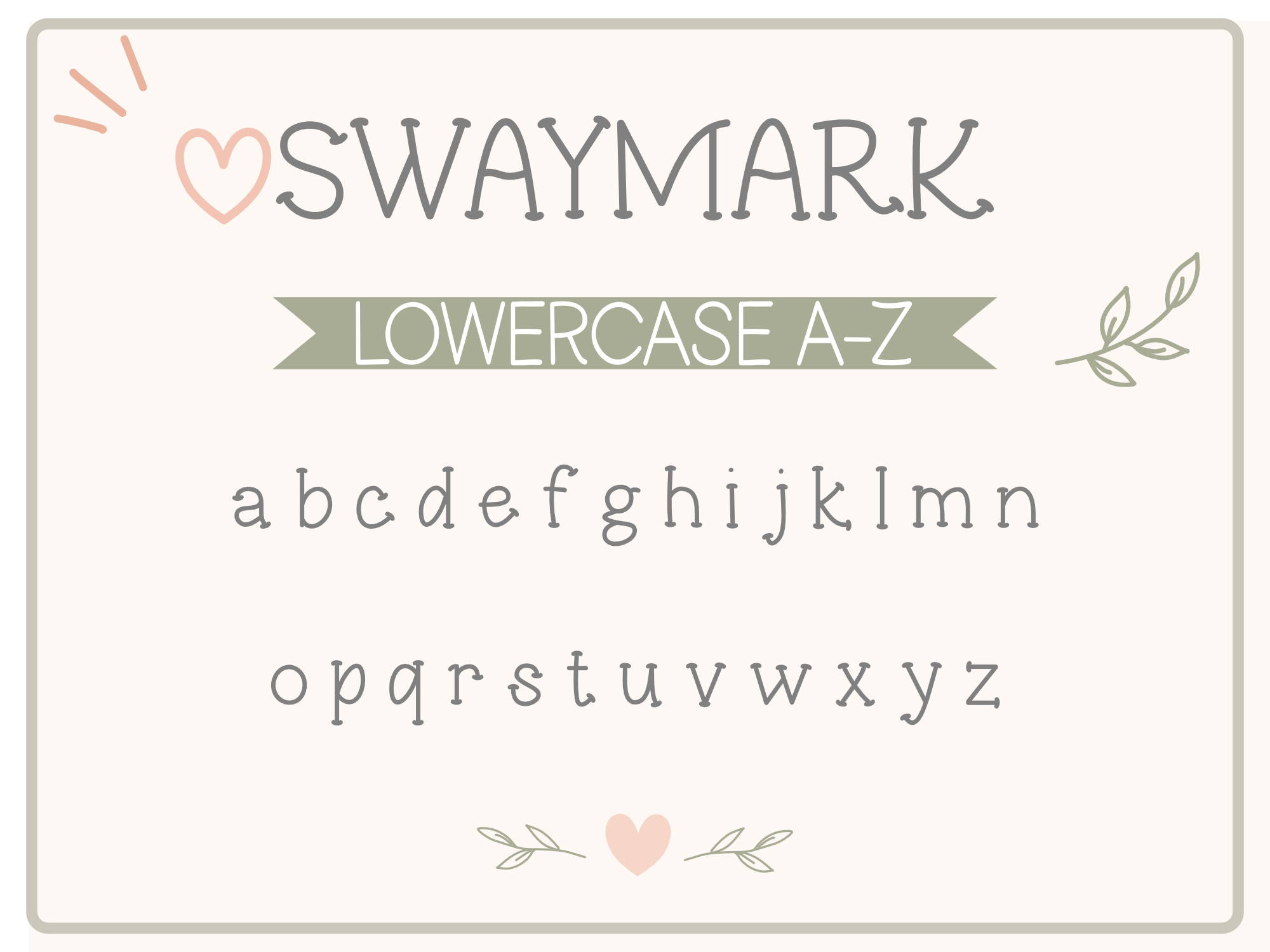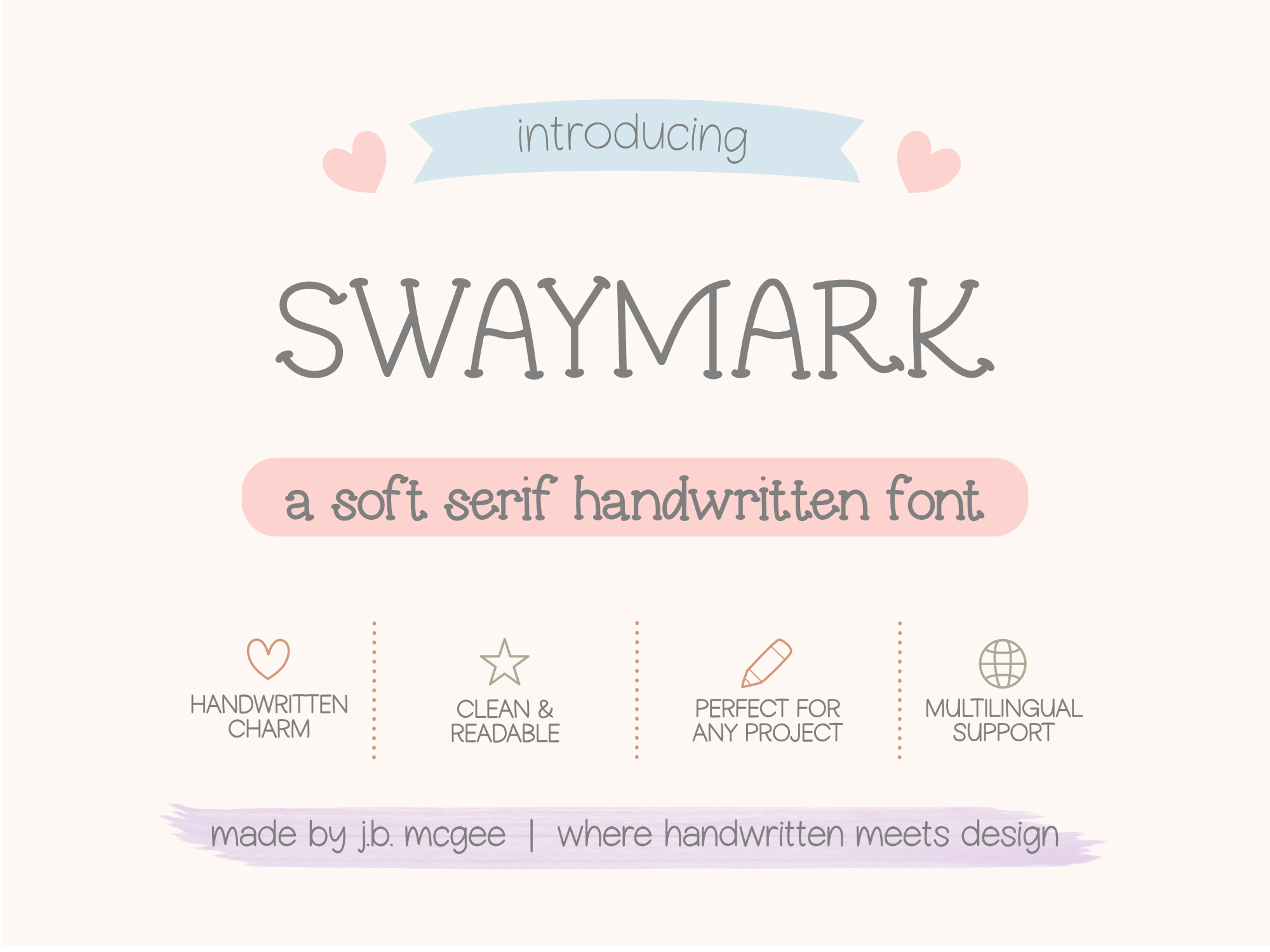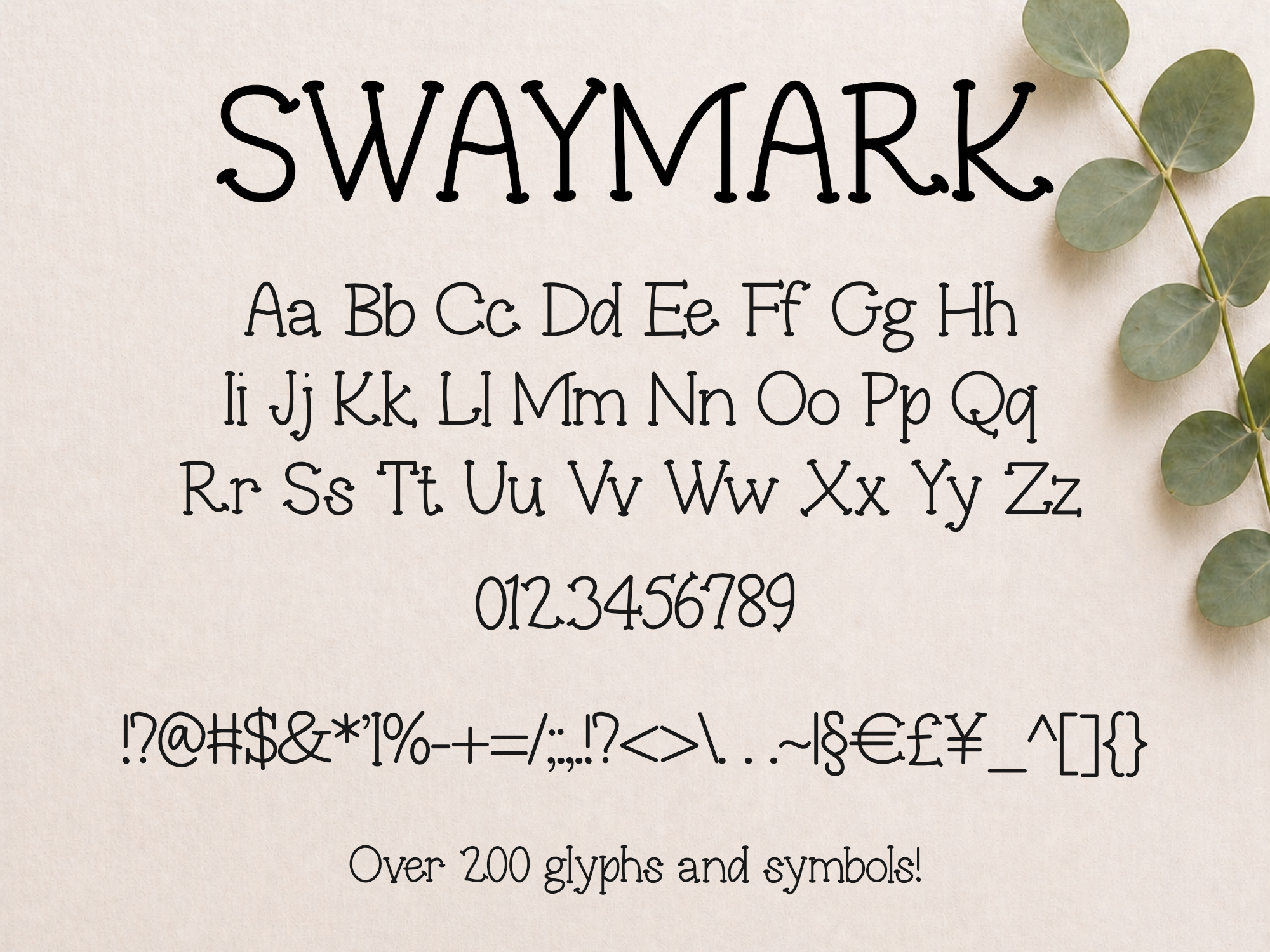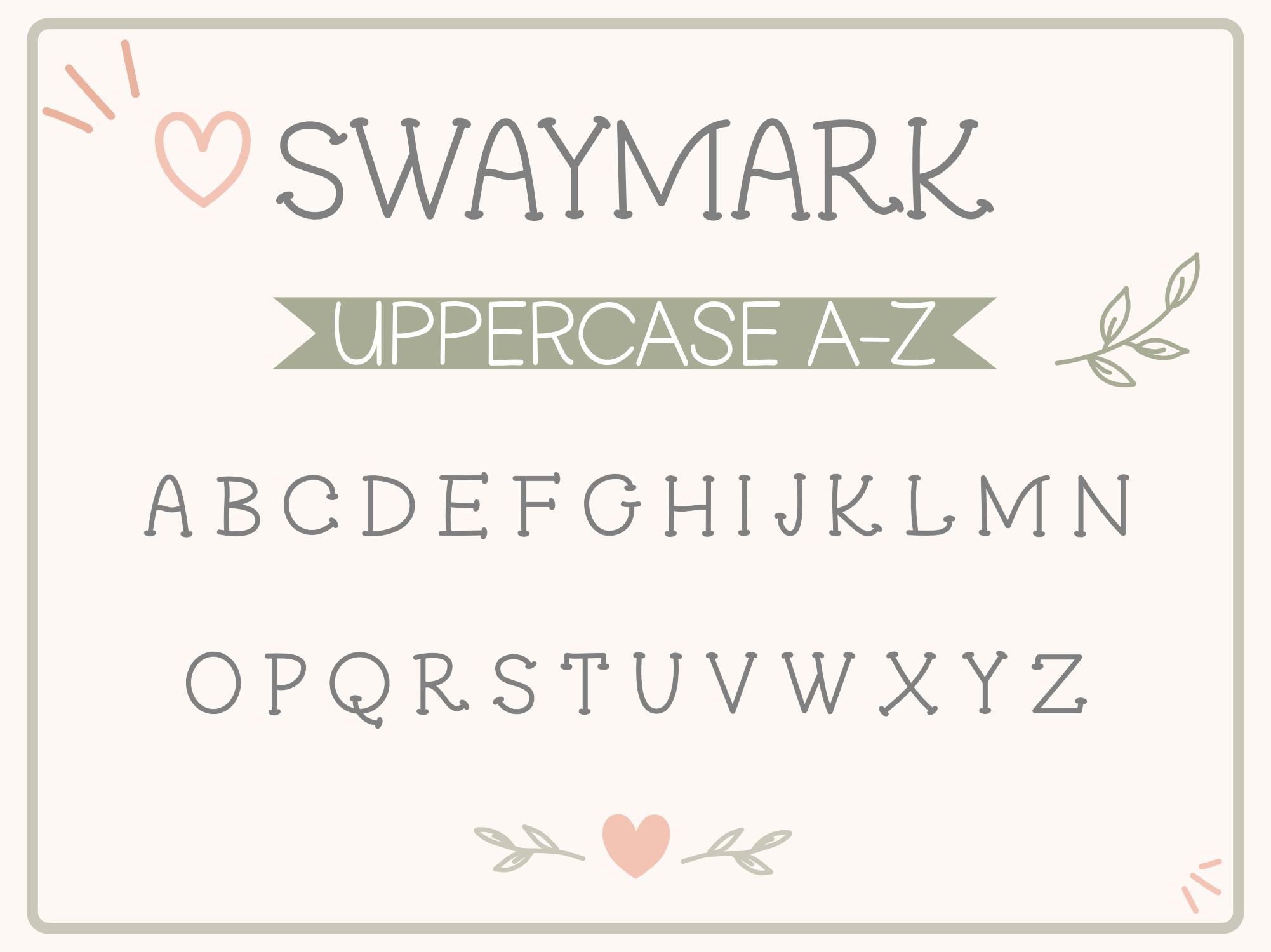
Swaymark Font
Swaymark Print is a soft serif handwritten font with subtle movement and personality. It blends clean structure with gentle curves, giving it a slightly playful, storybook feel while staying easy to read.
This font works beautifully when you want something a little more expressive than a standard print, but still polished enough for everyday use.
What makes Swaymark Print stand out:
• Soft serif details with a handwritten feel
• Slight movement in letterforms for added personality
• Clean, consistent strokes for readability
• Balanced between playful and polished
• Distinct uppercase characters with charm
Perfect for:
• Children’s materials and worksheets
• Storybooks and quotes
• Stickers and printables
• Classroom and teacher resources
• Branding with a soft, friendly tone
• Social media graphics